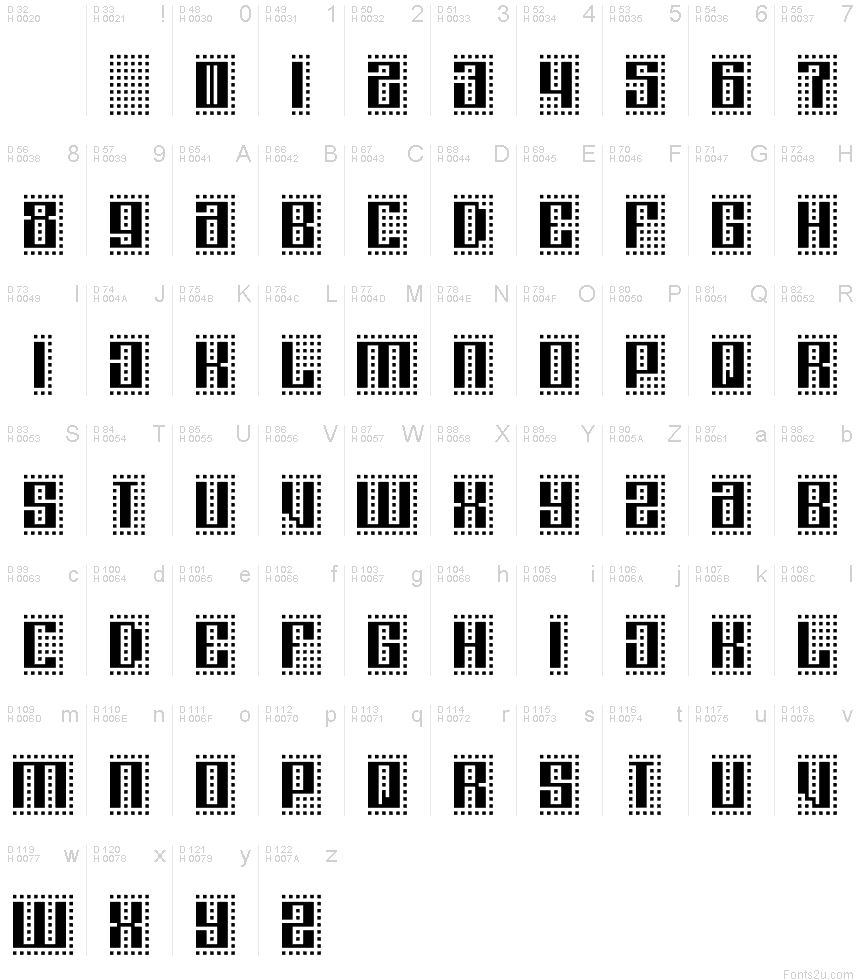
ComputerAmok
Computer Amok font by Jakob Fischer of PizzaDude is a free pixelated bitmap typeface that looks like it’s wired straight into a retro mainframe. Each letter is a chunky block framed by a tight grid of dots, so your text feels like it’s running through a flickering LED panel or an old debugging screen. The rhythm of the squares and perforated edges gives it a hyper-digital, almost claustrophobic energy that grabs attention in a single line of text.
Using Computer Amok, you get a headline style that thrives on impact: arcade game titles, synthwave or chip-tune posters, sci‑fi zines, hacker‑themed event flyers, streaming overlays, and bold YouTube thumbnails. This free font shines when used large, letting the dotted borders and pixel texture really buzz on screen. Pair it with a plain monospaced sans for body copy to keep things readable while Computer Amok does the shouting.